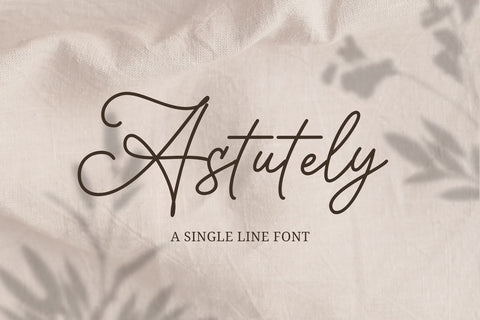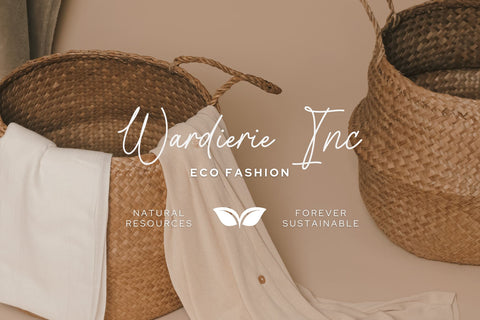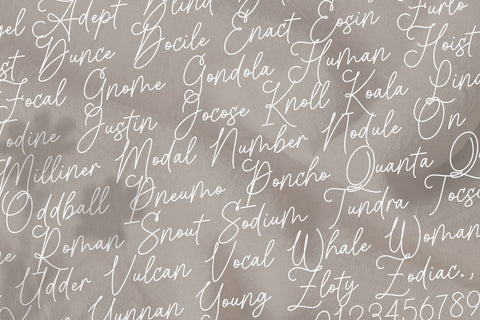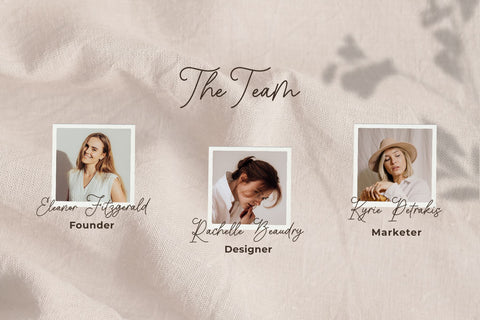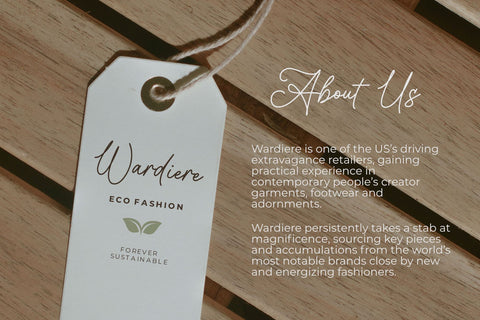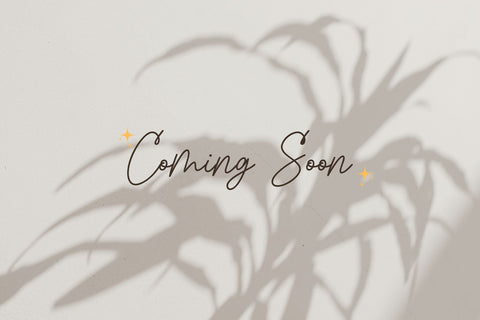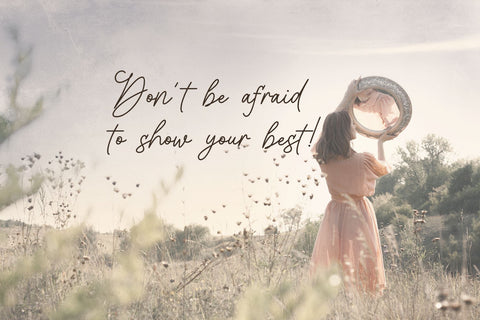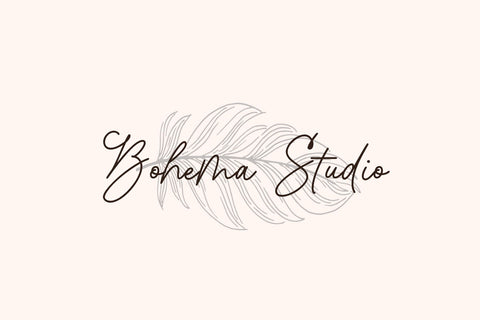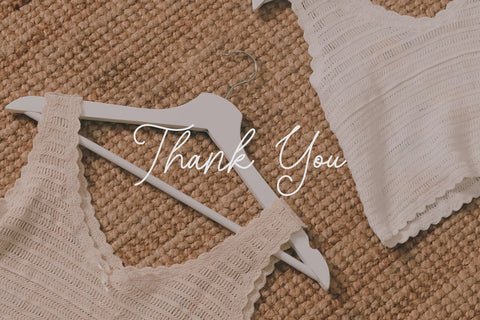
Astutely - a Single Line Font
Astutely is an elegant, sketch and single line handwritten font, described by a refined touch. Fall in love with its distinct and timeless style and use it to create spectacular designs!